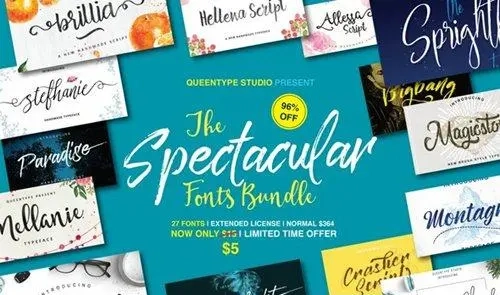
The Spectacular Font Bundle – 27 In 1 Font Bundle
The Spectacular Font Bundle offers an impressive collection of 27 unique fonts, perfect for a variety of design projects. This bundle includes a mix of styles such as serif, sans-serif, script, and decorative fonts, ensuring you have the right typeface for any occasion.
• 27 diverse font styles
• Multiple weights and styles available
Each font in this bundle is crafted with precision, providing excellent legibility and aesthetic appeal. The variety of weights allows for versatile applications, from bold headlines to elegant body text.
Utilize these fonts for branding, logos, web design, print materials, and user interfaces to create visually striking content that stands out.